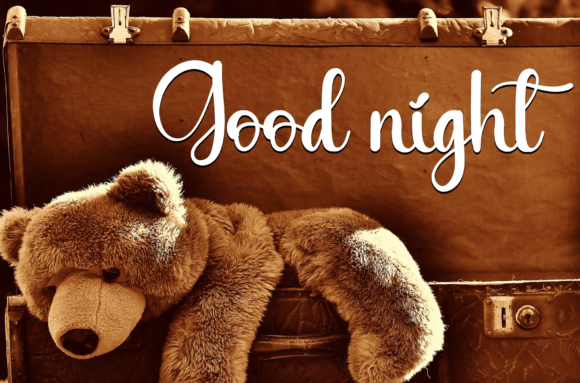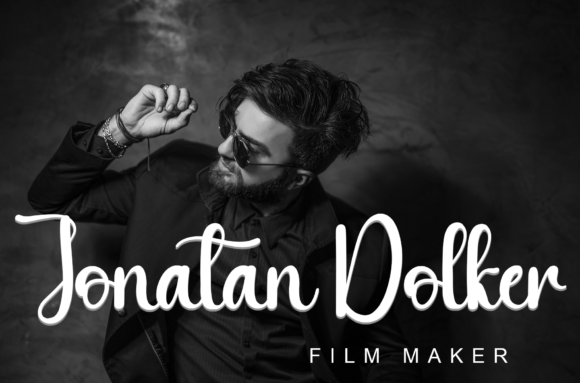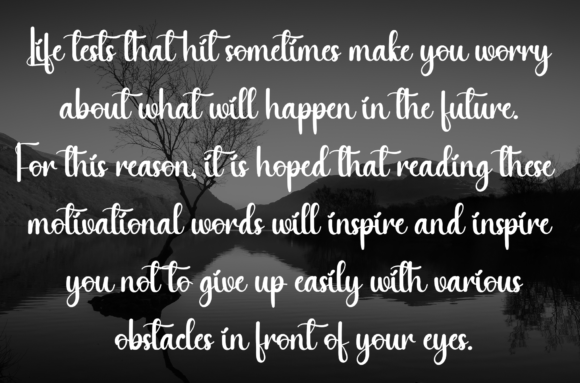
Simple Handmade Font
About Simple Handmade Font
Simple Handmade font is a straightforward and friendly handwritten typeface designed to bring a personal and warm touch to your creative projects. This font combines simplicity with charm, making it perfect for a variety of uses, whether you’re working on crafts, digital design, presentations, or greeting cards. It’s the kind of font that can easily become your favorite go-to choice for any occasion.
Friendly and Approachable Style
With its clean lines and natural flow, Simple Handmade font captures the essence of genuine handwriting. Its simplicity ensures that it complements your work without overpowering it, allowing your message or artwork to shine. This friendly style gives your designs a welcoming and approachable feel, ideal for connecting with your audience on a more personal level.
Perfect for Crafting Projects
For those who enjoy creating handmade crafts, Simple Handmade font is an excellent choice. Its warm, human touch enhances invitations, labels, scrapbooks, and personalized gifts. This font helps make every project feel more authentic and special, reflecting the care and attention you put into your creations.
Ideal for Digital Designs and Presentations
In the digital world, having a font that balances readability with character is crucial. Simple Handmade font delivers both. Use it in digital graphics, websites, or presentations to add a friendly and relatable vibe. Its clarity ensures your content remains easy to read while the handwritten style adds personality and uniqueness.
Great for Greeting Cards and Invitations
Greeting cards and invitations require a font that conveys warmth and sincerity. Simple Handmade font is designed to do just that. It’s versatile enough for casual birthday cards, heartfelt thank-yous, or elegant wedding invitations. Its handwritten charm brings an intimate touch that makes your cards stand out and feel truly personal.
Versatility and Ease of Use
One of the great strengths of Simple Handmade font is its versatility. It performs well across different mediums and sizes, whether printed or digital. This makes it a reliable option for designers, artists, and hobbyists alike. You can trust Simple Handmadefont to maintain its friendly, readable style in any project.
Why Choose Simple Handmade Font?
Choosing Simple Handmadefont means selecting a typeface that combines simplicity, friendliness, and versatility. It’s designed to help you add a natural, personal flair to your work without any hassle. Whether for professional or personal projects, this font makes your designs more inviting and engaging.
Bring Your Projects to Life with Simple Handmade Font
Whether you’re designing crafts, digital media, or cards, Simple Handmadefont is a wonderful way to add a warm and personal touch. Its friendly, handwritten style enhances your work, making it memorable and charming. Try Simple Handmadefont today and discover how it can transform your creative ideas into beautiful, heartfelt designs.